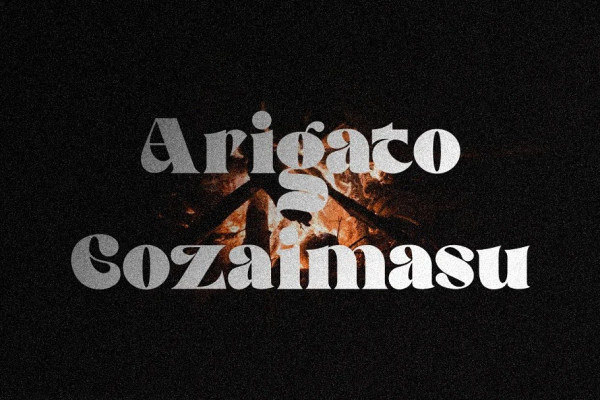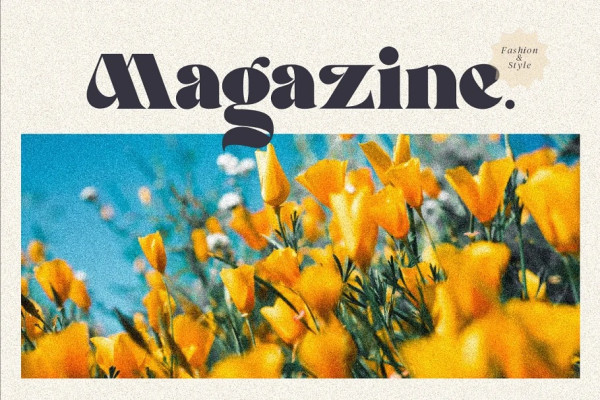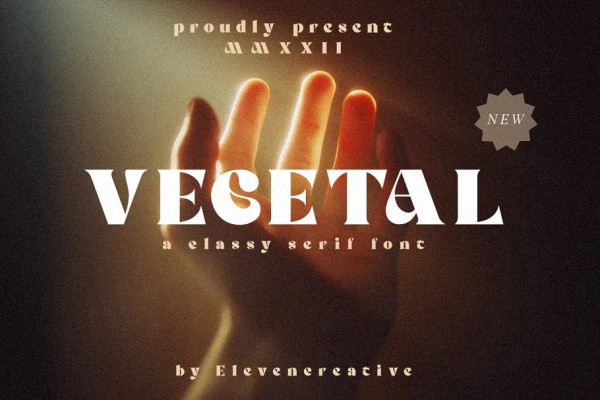
Vegetal Font
Vegetal Font, this modern serif typeface features serifs. Perfect for gorgeous logos & titles, Portent will pair beautifully with many fonts and work well with whatever project you’re working on.